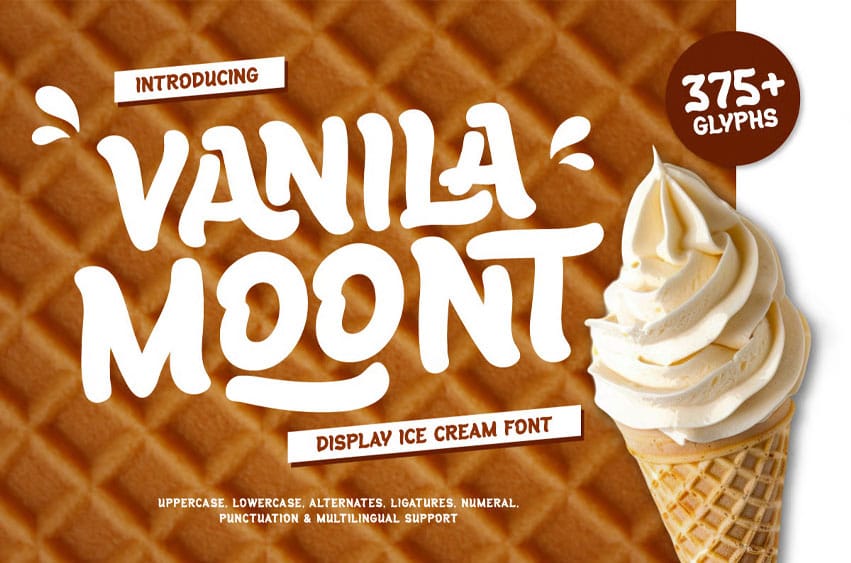
Vanila Moont Font Ice Cream Display Font brings a delightful blend of sweetness and playfulness to your designs. Inspired by soft ice cream shapes and creamy textures, this font captures the joyful feeling of summer treats and cheerful moments. Its rounded edges and smooth flow make every word feel soft, friendly, and full of life.
Packed with alternates, ligatures, numerals, and multilingual support, Vanilla Moont offers both charm and versatility. Whether you’re designing packaging, product labels, posters, or playful branding, this font easily adds a sense of freshness and warmth to your compositions. It’s designed to make any layout stand out while keeping a smooth and approachable personality.
Every letter of Vanila Moont feels hand-crafted with a touch of happiness—perfect for projects that want to spread positivity and light-hearted energy through type. It’s more than a font; it’s a scoop of fun for your design work.
Vanila Moont Font Preview